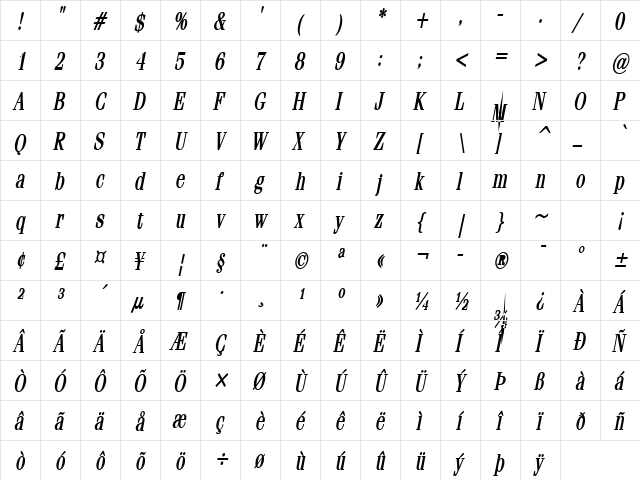
Feline Thin BoldItalic Font Preview
Feline Thin BoldItalic
Feline Thin BoldItalic Font Details
Design Context for Feline Thin Typeface
Feline Thin offers clean, dependable letterforms without strong stylistic allegiance, making it a practical choice for designers who need flexibility. The slanted form adds forward momentum and visual energy. The heavy weight commands attention and anchors typographic hierarchies.
Pro Tip: Try Feline Thin for annotation and caption copy alongside an upright companion — the contrast in angle creates a dynamic but ordered typographic system.